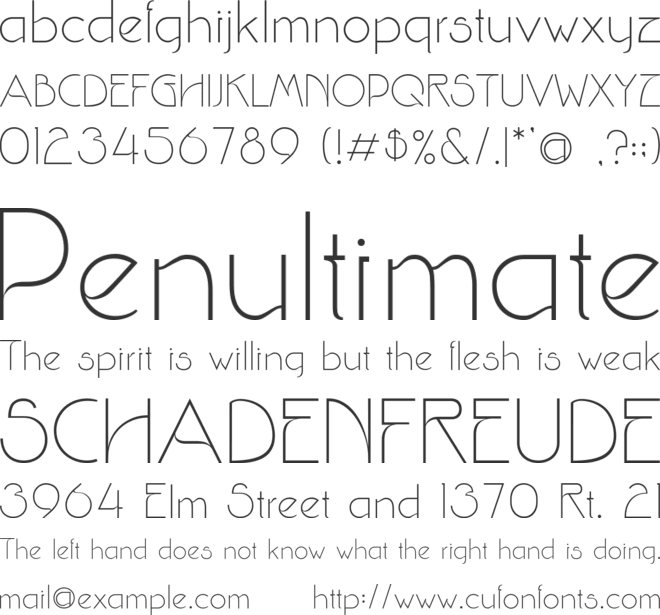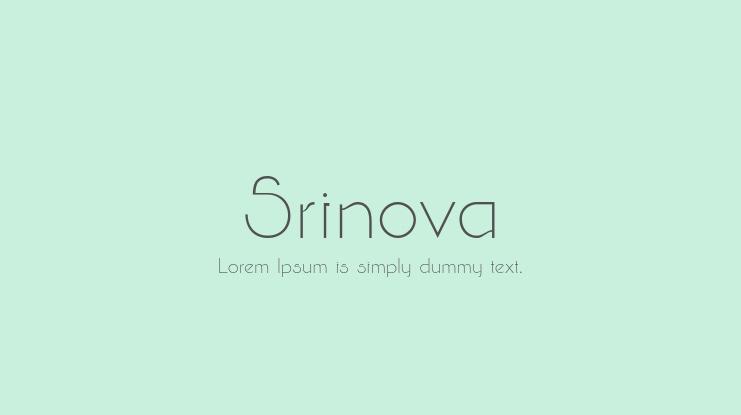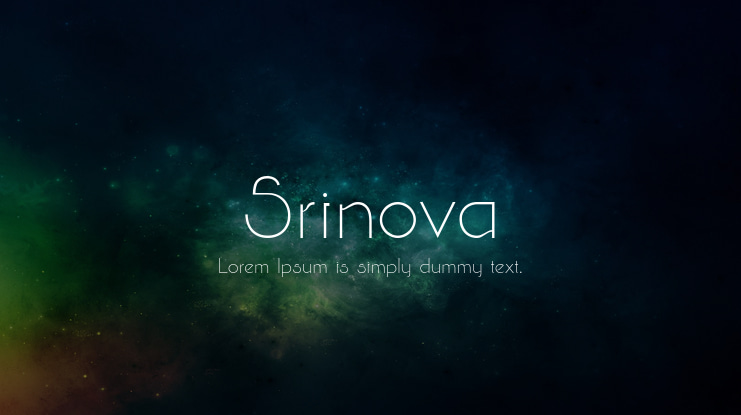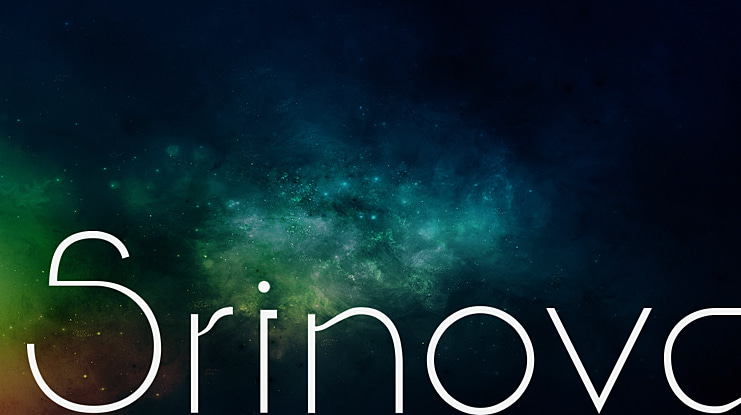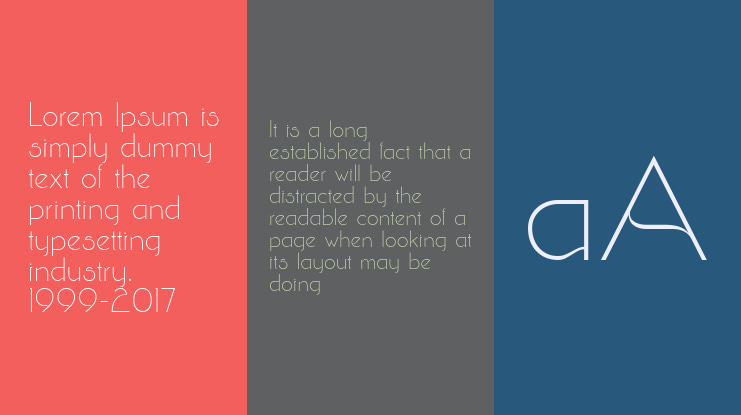
Srinova Font
Richie Riky
Fontface has a thin thickness, curvature contained in a line showed differences with other fontface, characterizes the identity of fontface Srinova. The lines are quite feminine, but can be used also for the masculine style.